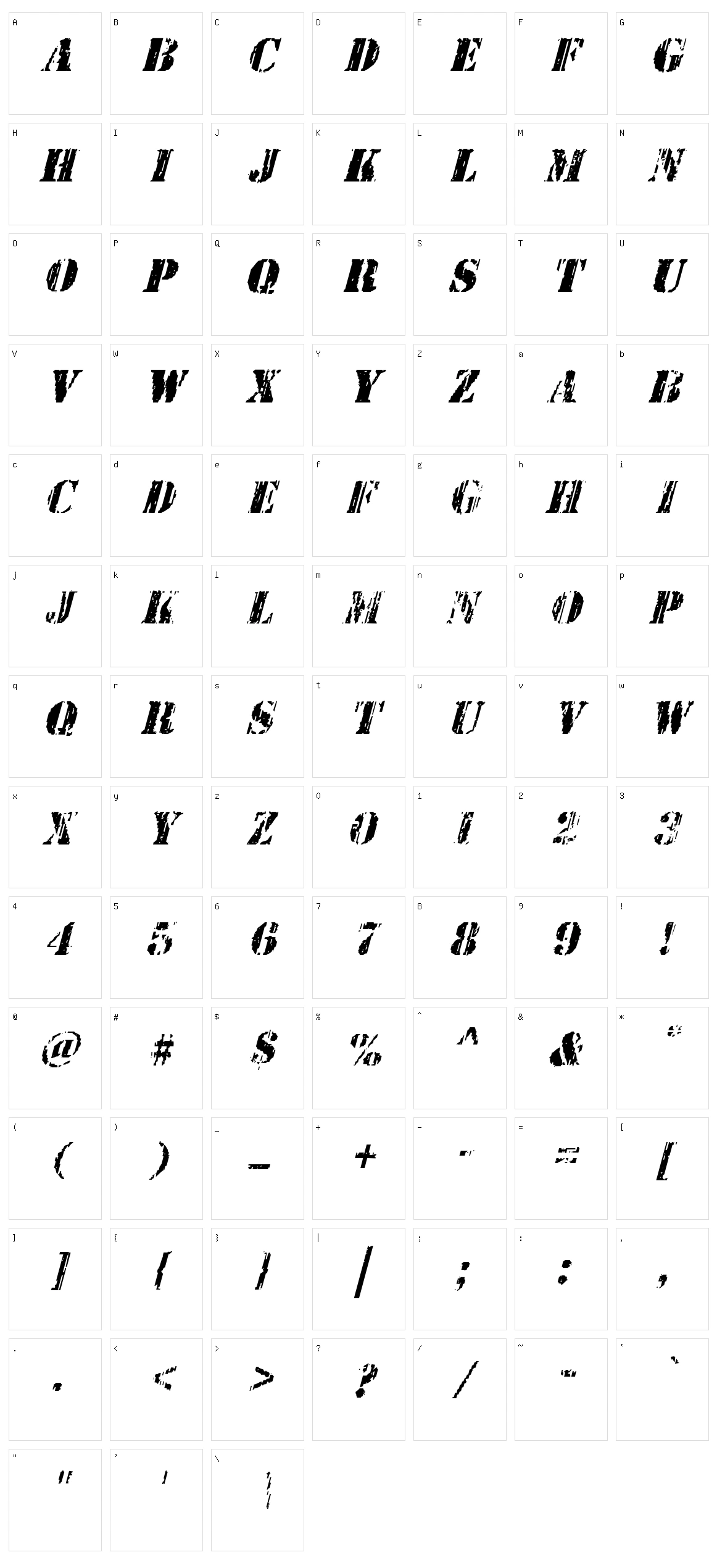
The free font Wetworks is carefully designed by Iconian Fonts, showcasing a thoughtful balance of creativity and usability and falls under the Stencil font style. When you download the ZIP file, it contains only 1097.77 KB of font files, making it lightweight and quick to download. Please review the license details below to understand permitted usage and distribution rights. If license information is not available, we recommend using this font for personal projects only or contacting the author directly for commercial usage permissions.
This font comes with the following 10 versions: Regular, Italic, Condensed, Condensed Italic, Expanded, Expanded Italic, 3D, 3D Italic, Staggered and Leftalic.